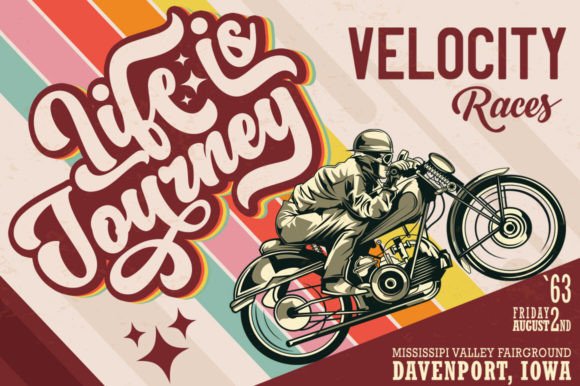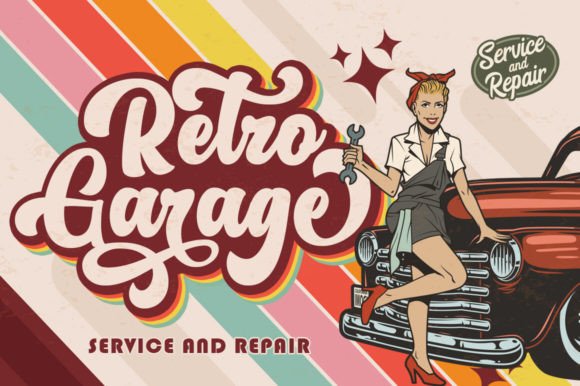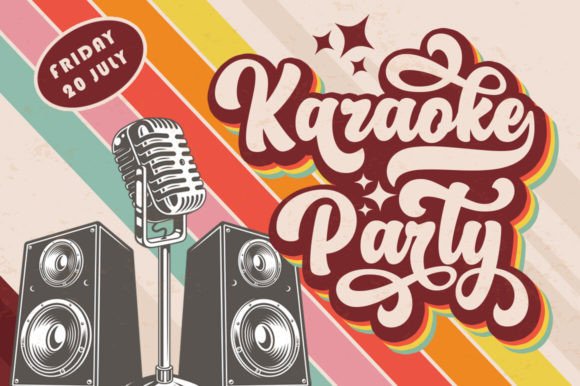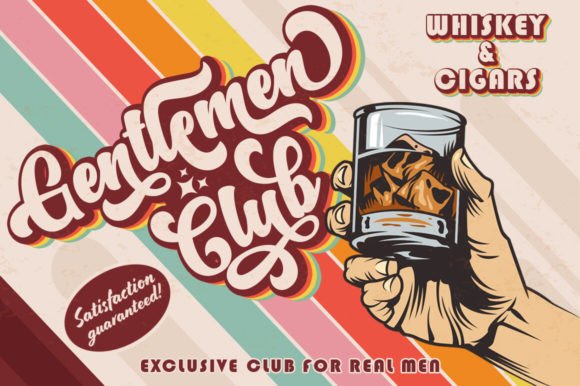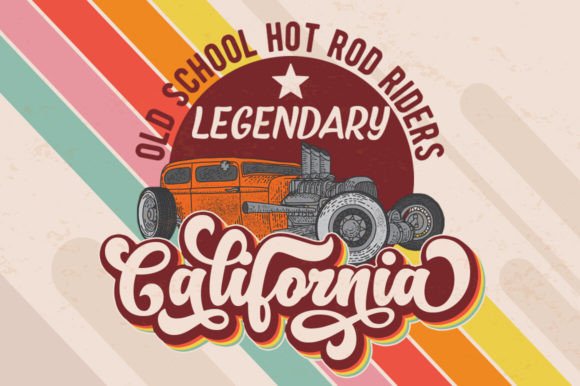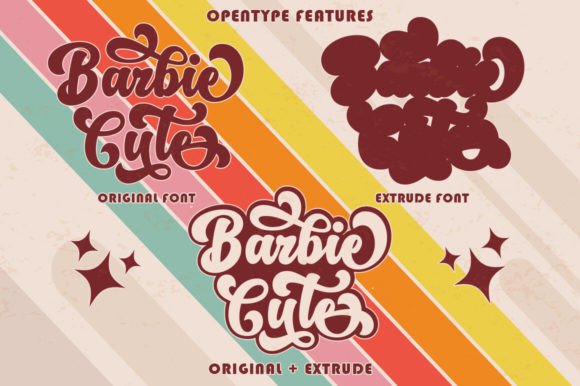
Discover the Charm of Barbie Cute Font: A Perfect Blend of Nostalgia and Modernity
Are you a designer or crafter looking for a typeface that can add a touch of vintage charm to your creations? Look no further than the Barbie Cute font, a delightful and evocative typeface that seamlessly combines nostalgia with modernity. This beautiful font is ideal for creating vintage-inspired designs that exude a timeless appeal, making it perfect for a wide range of applications, from badges and logos to posters, tees, and branding materials.
Unleash Your Creativity with Barbie Cute Font
Barbie Cute font is more than just a collection of letters; it’s a gateway to a world of retro charm and character. Every glyph and swash is meticulously crafted to bring a unique personality to your designs, making each creation truly special. The font’s PUA encoding ensures that every character is easily accessible, allowing you to experiment and express your creativity without any limitations.
One of the best things about Barbie Cute font is its versatility. You can use it to add an old-world touch to a wide range of design materials, including:
- Badges and logos: Create eye-catching badges and logos that stand out with the Barbie Cute font.
- T-shirts and merchandise: Add a touch of vintage charm to your apparel and merchandise designs.
- Posters and flyers: Create stunning posters and flyers that grab attention with the Barbie Cute font.
- Branding materials: Use the font to create consistent branding across all your marketing materials.
- Packaging: Add a touch of nostalgia to your packaging designs.
- Signages: Create eye-catching signages that stand out with the Barbie Cute font.
- Book covers: Use the font to create stunning book covers that capture the essence of your story.
What Makes Barbie Cute Font Special?
So, what sets Barbie Cute font apart from other typefaces? Here are a few features that make it a standout:
- PUA Encoding: The font’s PUA encoding ensures that every character is easily accessible, making it easy to use and experiment with.
- Unique Character: Every glyph and swash is meticulously crafted to bring a unique personality to your designs.
- Vintage Charm: The font’s vintage-inspired design adds a touch of nostalgia to your creations.
- Modern Appeal: Despite its vintage charm, the font has a modern appeal that makes it suitable for a wide range of applications.
Tips for Using Barbie Cute Font
Here are a few tips for using Barbie Cute font to get the most out of your designs:
- Experiment with different sizes: The font looks great in various sizes, so don’t be afraid to experiment and find the perfect size for your design.
- Play with colors: The font looks great in a wide range of colors, so try out different color combinations to find the one that works best for your design.
- Mix and match: Don’t be afraid to mix and match the font with other design elements to create a unique look.
In conclusion, the Barbie Cute font is a versatile and charming typeface that can add a touch of vintage charm to your designs. With its unique character, PUA encoding, and endless design possibilities, it’s the perfect choice for designers and crafters looking to create stunning designs that stand out. So, why wait? Immerse yourself in the world of retro charm with the Barbie Cute font and take your designs to the next level.